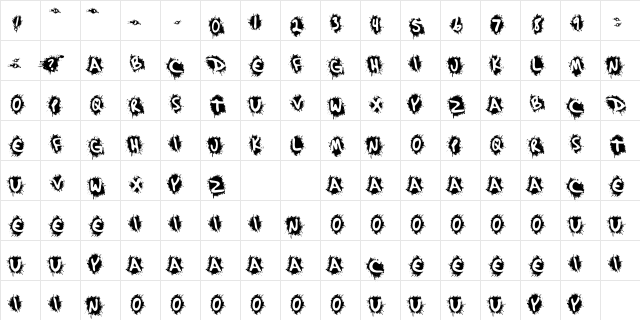
SplashKhat-PERSONAL Regular
| Foundry | Khat Graphics |
| Designer | Kimberly Lanham |
Design Context for SplashKhat-PERSONAL Typeface
SplashKhat-PERSONAL is a composed and adaptable typeface that performs quietly and consistently across a wide range of design contexts.